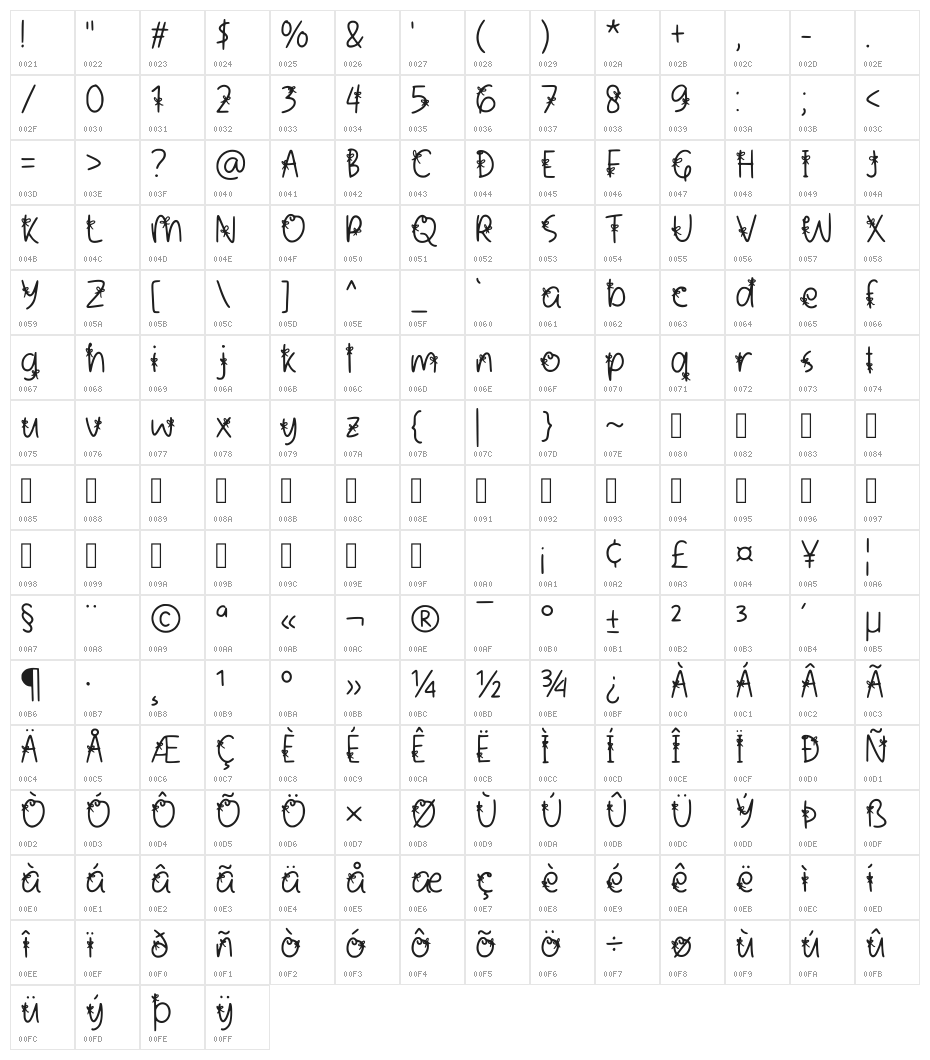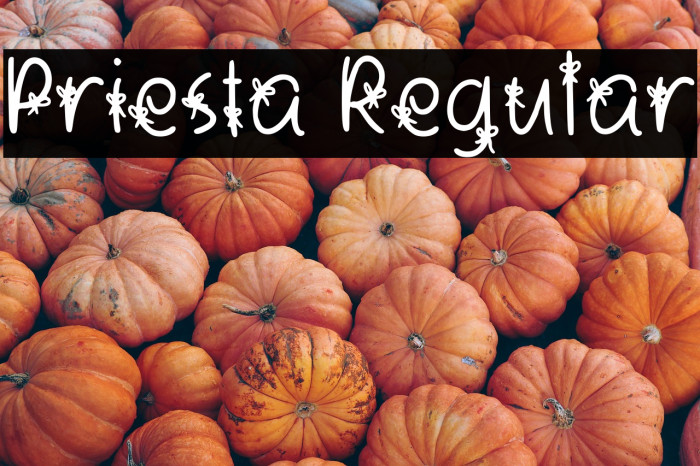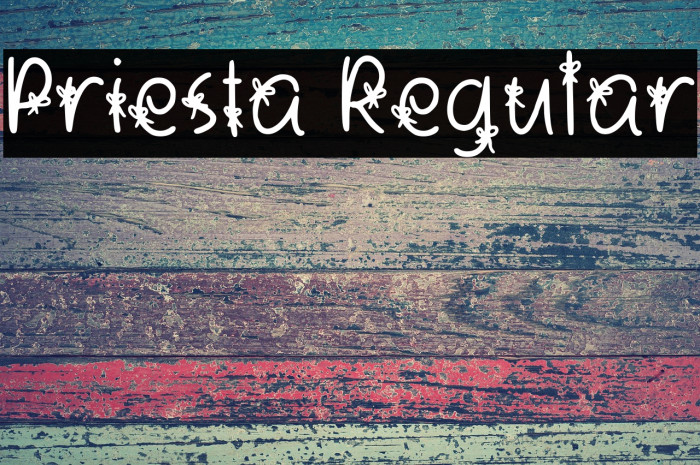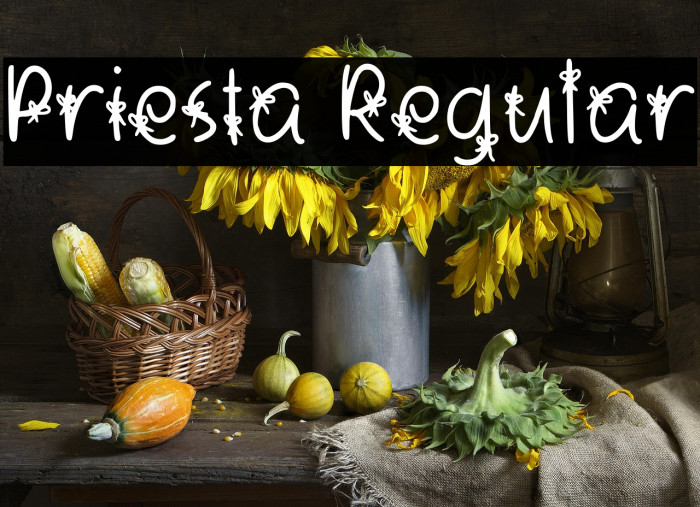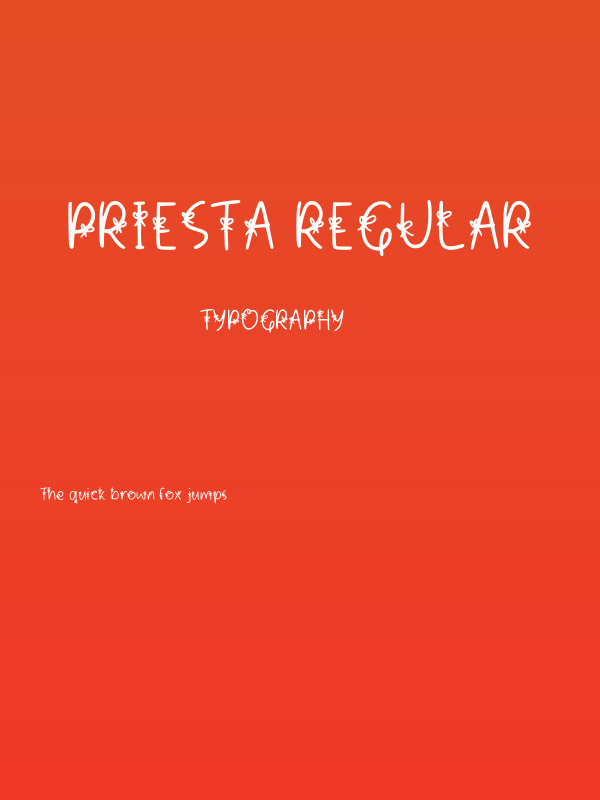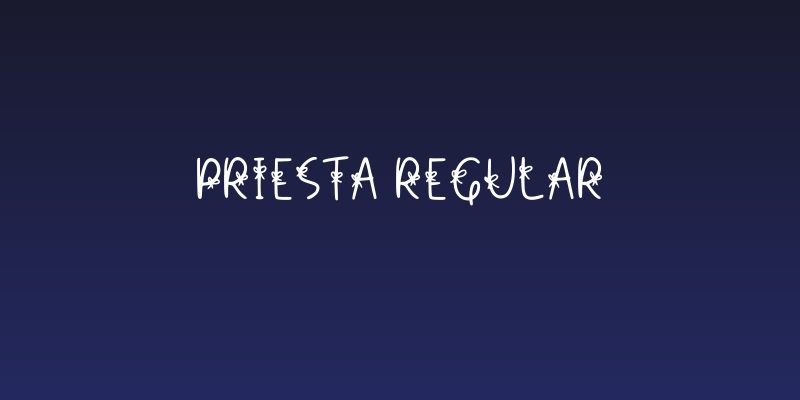
Priesta Regular Font
Priesta Regular Description
This font features a playful and whimsical design, characterized by its decorative elements that resemble small stars or asterisks integrated into the strokes of each character. The letters have a hand-drawn, casual appearance with a consistent flow, making them appear lively and dynamic. The uppercase and lowercase letters maintain a uniform style, while the numbers and special characters follow the same decorative theme. This font's unique style adds a touch of creativity and fun to any text, making it stand out with its artistic flair.
| Proposed Projects | Ideal for children's book covers, playful branding, party invitations, and creative posters. |